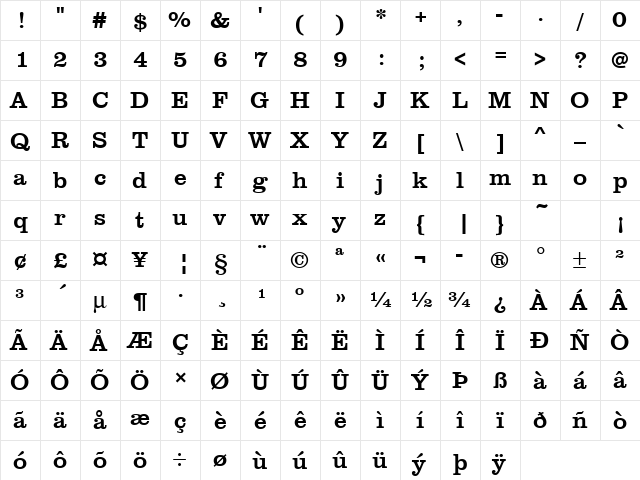
URWClarendonT Regular
Design Context for URWClarendonT Typeface
URWClarendonT combines the readability of serif typography with the visual weight of a slab construction, resulting in a typeface that feels both authoritative and approachable.
Works well in editorial design, news publishing, impactful branding, and poster typography.
Pro Tip: Try URWClarendonT set tight in headlines for a classic editorial feel. Its slab serifs create strong horizontal rhythm that anchors a page layout.